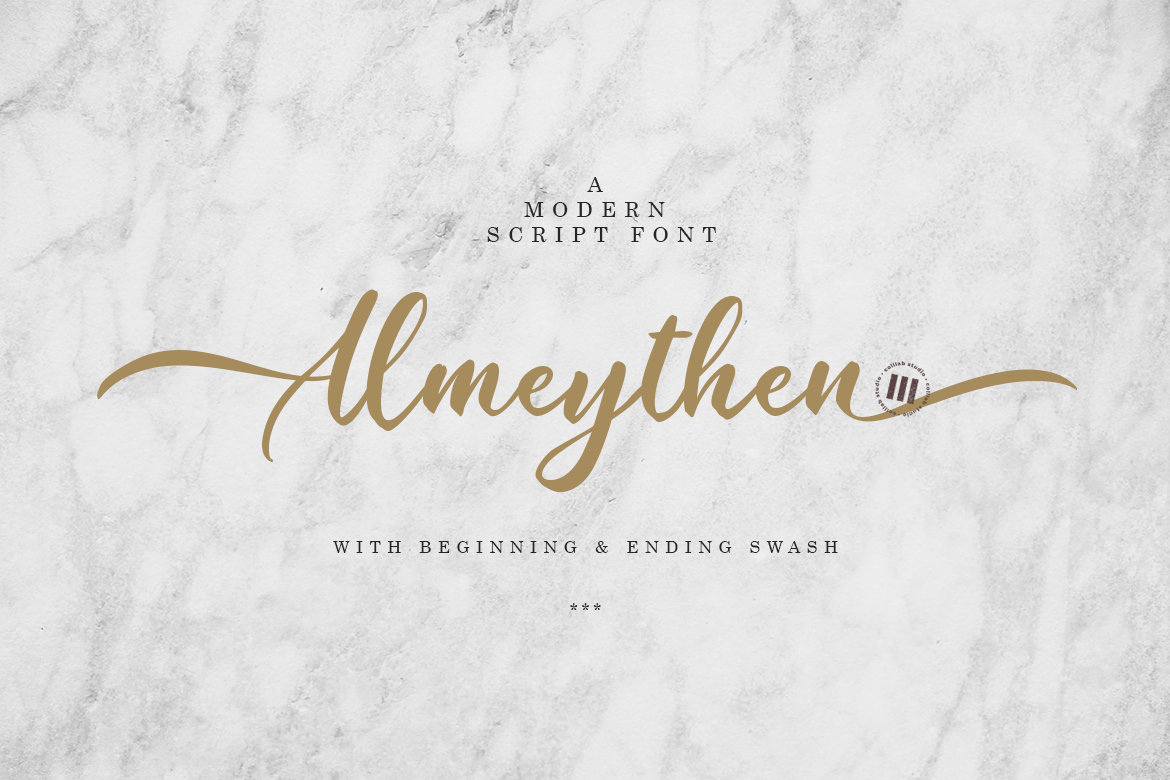
Almeythen | A Modern Script Font
Almeythen is a font that creates luxury and opulence at the same time. This font is designed to massage the eyes of your readers and subconsciously directs them to believe that you truly care about your customers and loved ones.
Almeythen is a modern script font that has a double-story nature and in the right hands can be used to convey elegance and luxury, like a perfectly drawn cursive font. However, a single story or traditional cursive, can become illegible for reading at any size.
The font has a very soft, hand-made appearance and makes a methodical, modern design become more gracious and elegant. It’s perfect for all display types such as, headlines, blog posts, product packaging, fashion designs, events, blog titles and even web pages.
- 4 Sets of Stylistic Alternates (Beginning & Ending)
- Swashes & Ligatures